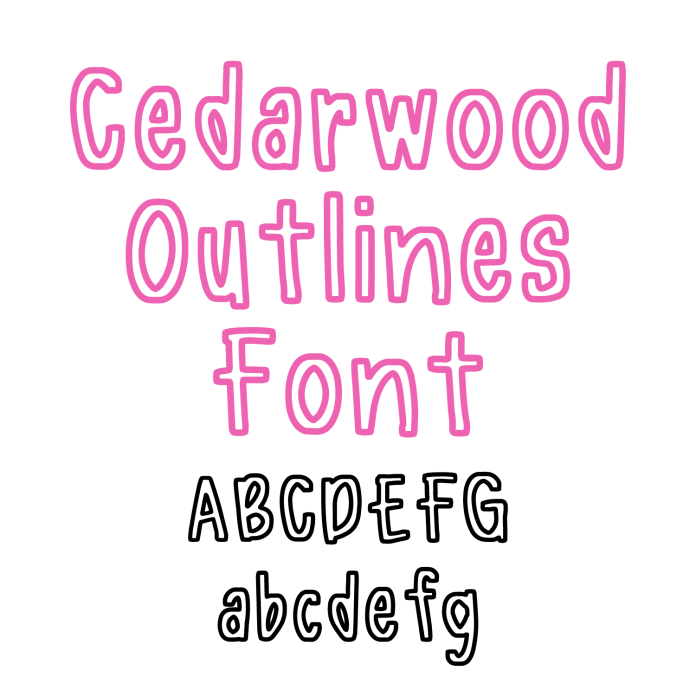
Introducing Cedarwood Outlines Font—a unique outline handwritten font that adds a bold, artistic touch to all your crafting projects! With its striking outline design and free-spirited style, Cedarwood is perfect for stickers, labels, greeting cards, wall art, and custom gifts. This versatile hand-drawn font is ideal for use with cutting machines, offering crisp, clean cuts and easy weeding. Whether you're creating printables, vinyl decals, or digital designs, Cedarwood Outlines Font gives your projects a standout look with its playful, artistic flair. Download Cedarwood Outlines today and elevate your crafting creations with this fun and stylish font!